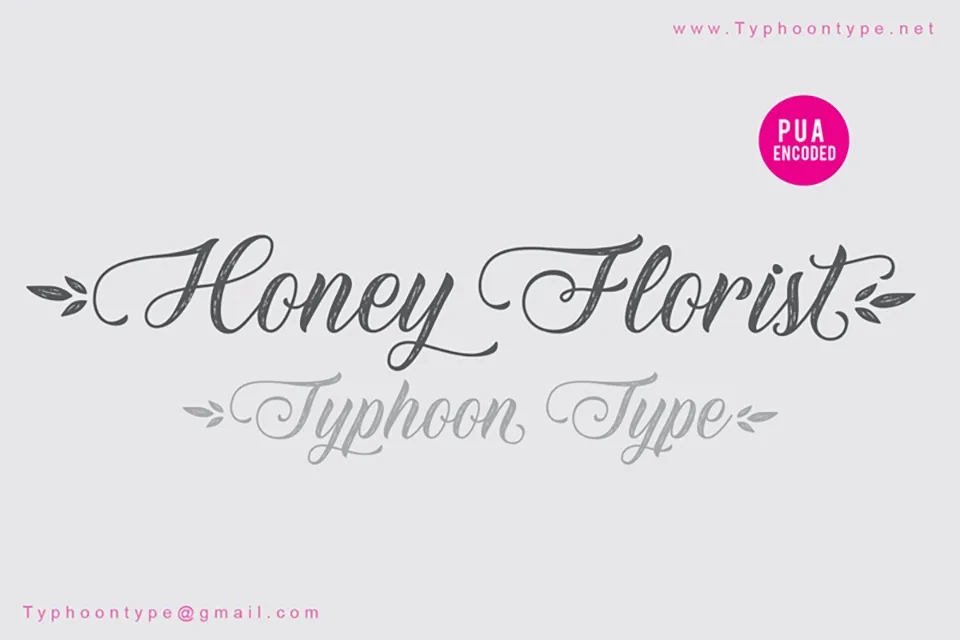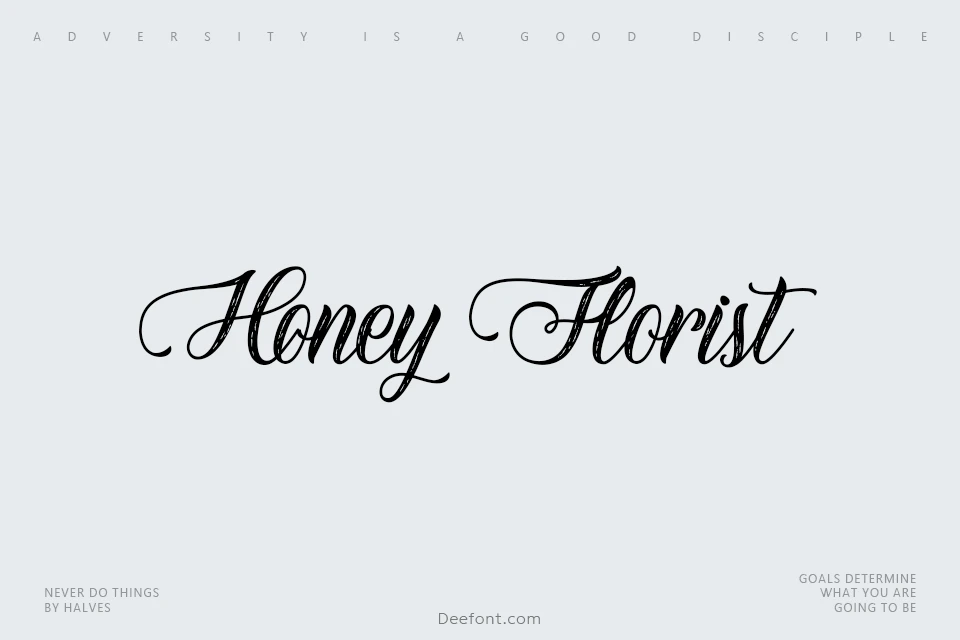
Honey Florist Font
Honey Florist Font is a delicate and sweet script font that looks perfect on logos, name tags, advertising, product packaging, clothing, social media, and greeting cards. This font is PUA encoded, allowing easy access to all glyphs and swashes, making it ideal for creative and professional designs.